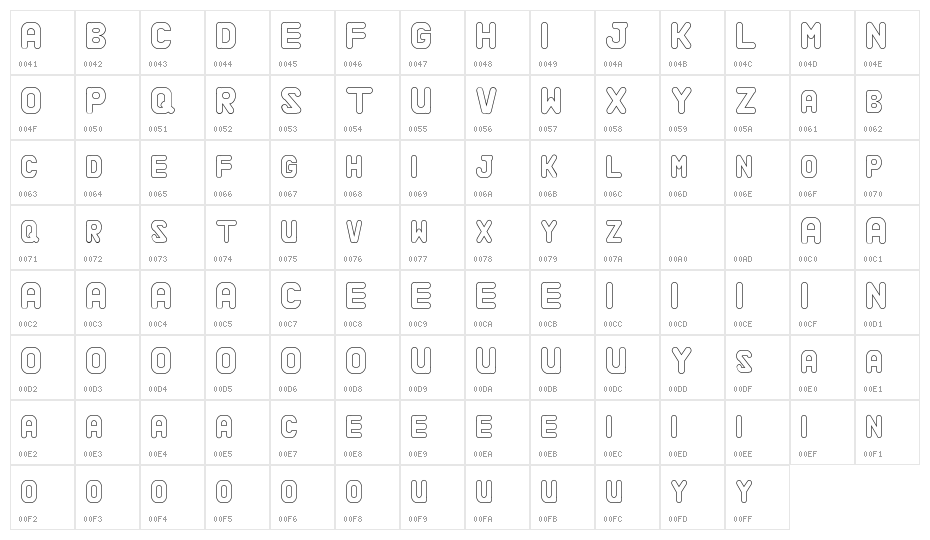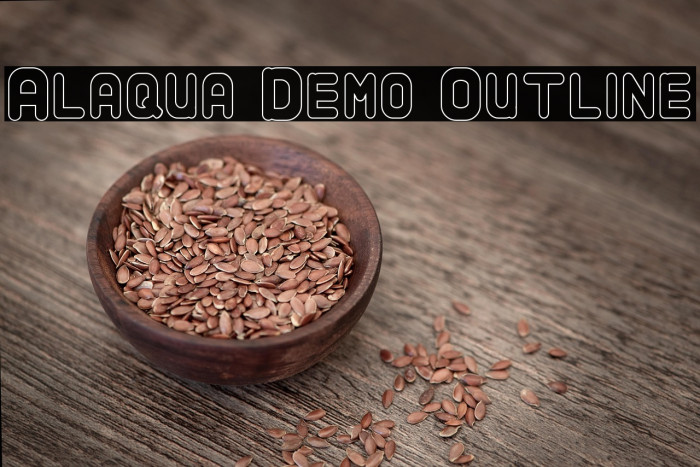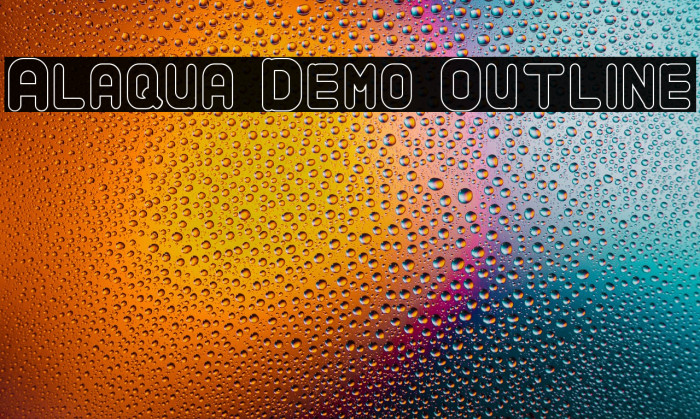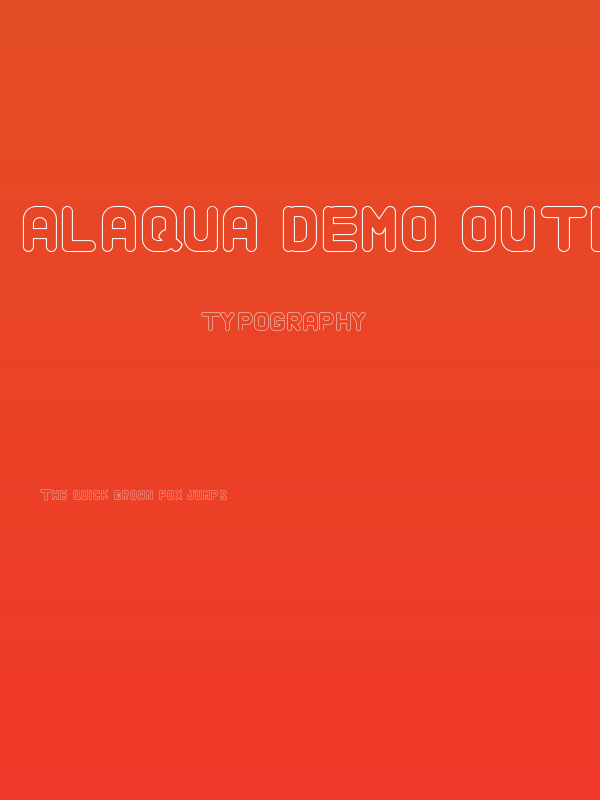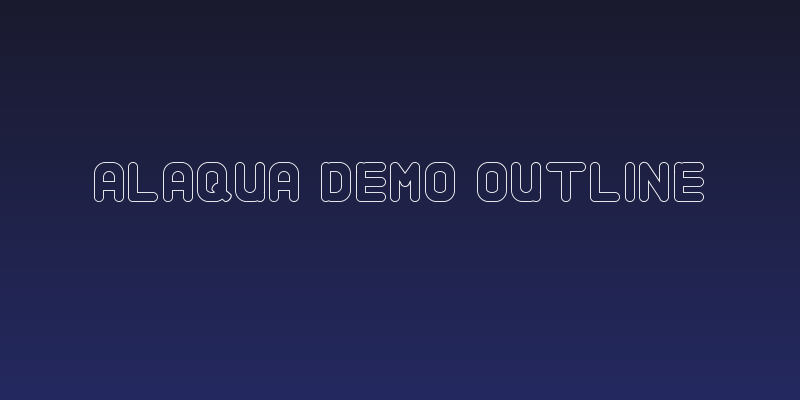
Alaqua Demo Outline Font
Alaqua Demo Outline Description
This font features a modern, geometric outline style with clean lines and a uniform thickness throughout each character. The uppercase letters are bold and structured, creating a strong visual impact. The design is consistent across all characters, maintaining a balance between simplicity and distinctiveness. The outline effect adds a unique dimension, making it suitable for various creative applications. The font's clarity and legibility are maintained even with the outline style, ensuring it stands out in both digital and print formats.
| Proposed Projects | Ideal for branding, posters, headlines, and digital media where a modern and impactful look is desired. |